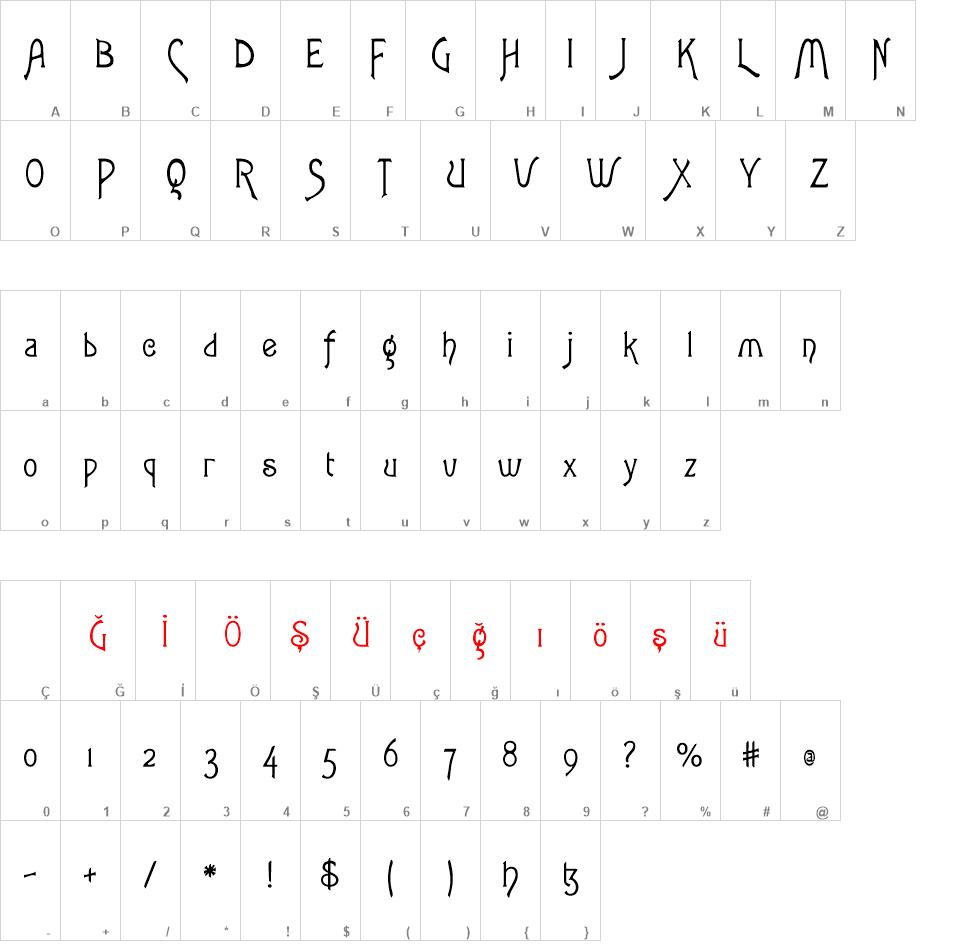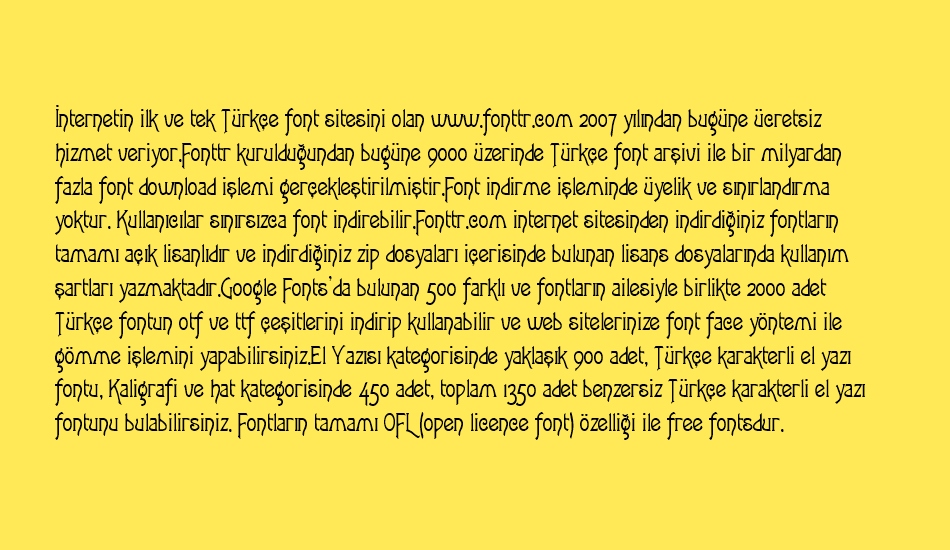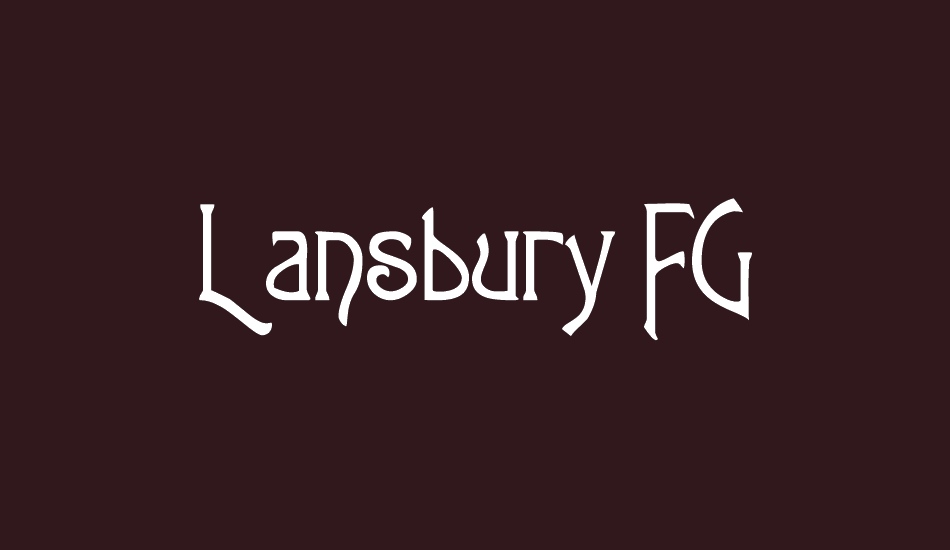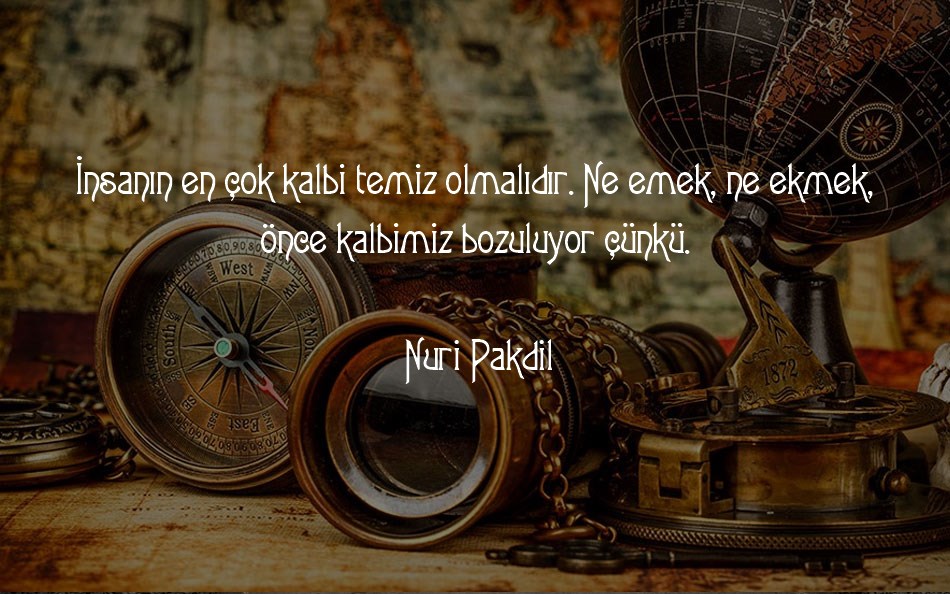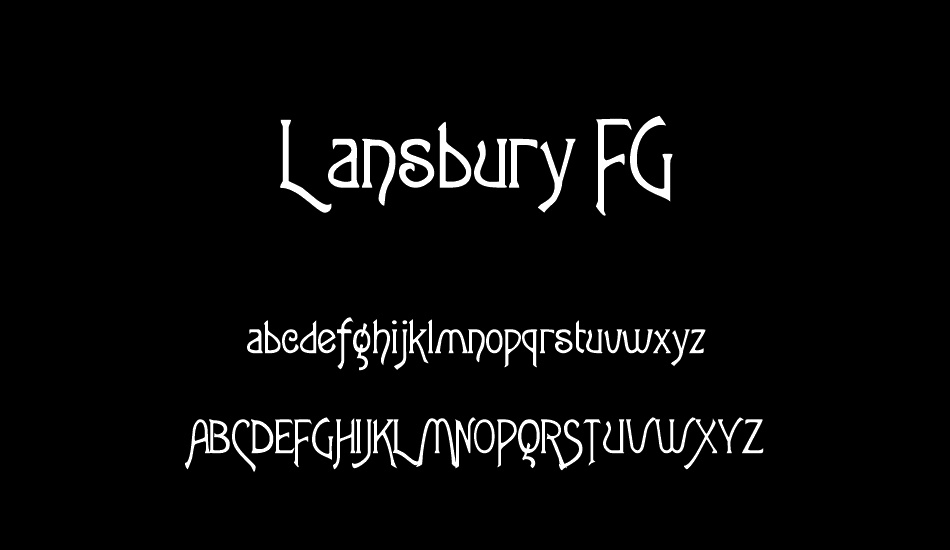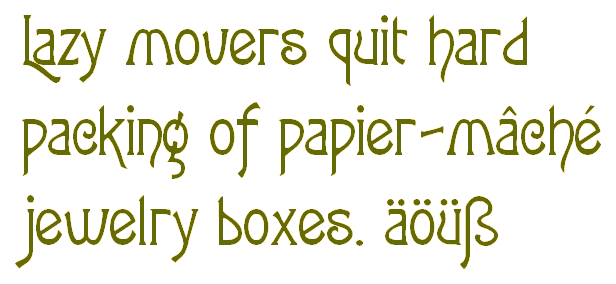
Lansbury FG font
Lansbury FG 1.10
The first name of this beautiful Art Nouveau font it seems was "Art Gothic" or "Toulouse Lautrec". It became a "famous font" through a TV series starring Angela Lansbury as detective novelist Jessica Fletcher. So the font also runs under "Fletcher Gothic", "Lansbury" etc.
Using one of the anonymous freeware versions around, I added many characters. Alternative characters had to go to different places, non-standard of course, but more convenient for non-Unicode-aware software. This free font software is mainly for the benefit of amateurs. Professionals, get one of the commercial versions on sale if you bother. Or put up with the inconvenience for free.
In version 1.10 I did further tweaking on letterspacing, kerning and outline smoothing and also added a few more characters in slots that had been empty.